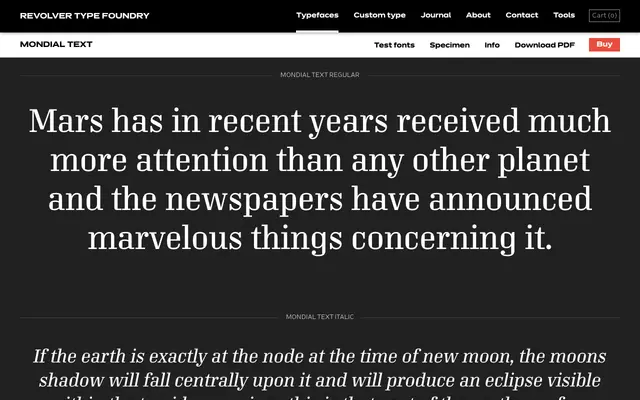
A text serif from Revolver Type Foundry offered in four weights from Regular to Bold, each with a matching italic.
A text-oriented serif family in four weights — Regular, Book, Medium and Bold — each accompanied by an italic. The weight range is well suited to body copy and editorial hierarchies, with the Book weight occupying the middle ground between Regular and Medium. No condensed or display variants are listed, suggesting the family is focused squarely on sustained reading at text sizes.
The typeface is positioned explicitly as a text family with optical sizing suited to body copy, offering book, medium and bold weights with matching italics, consistent with a contemporary text serif design.